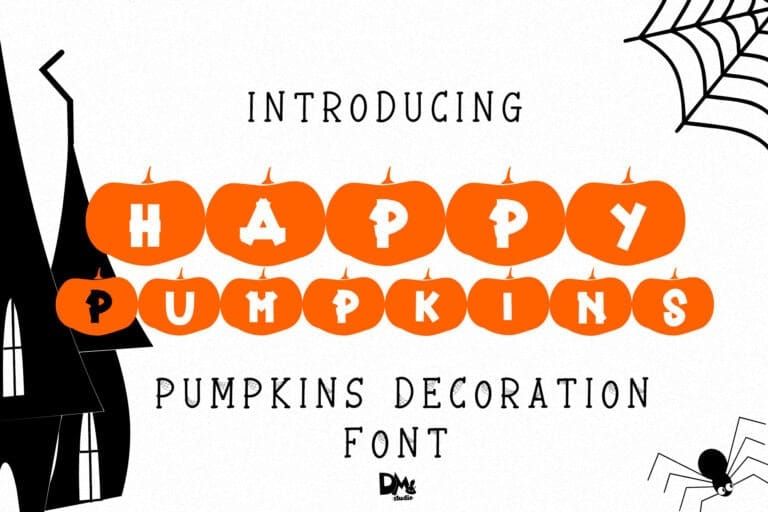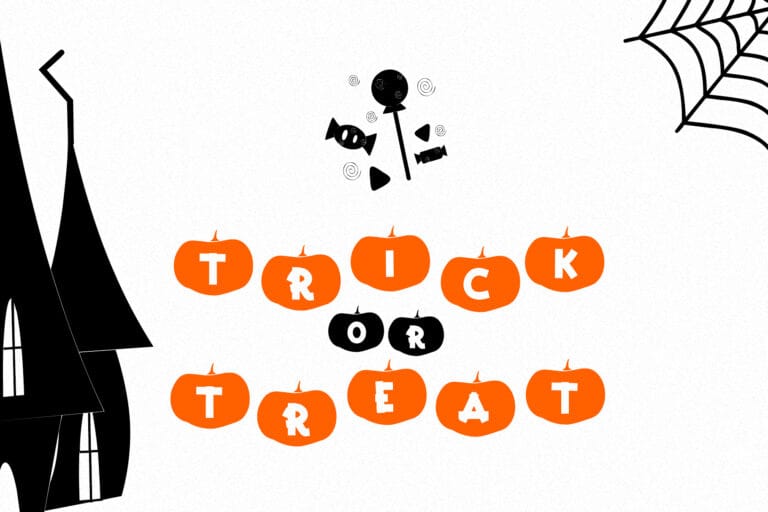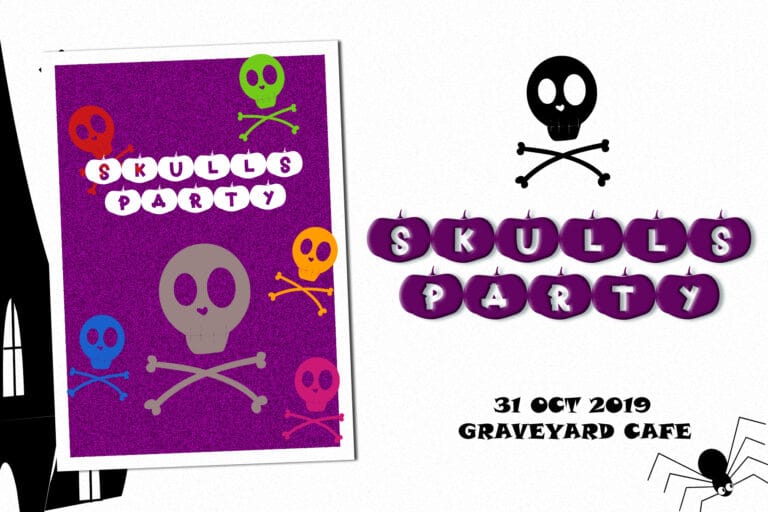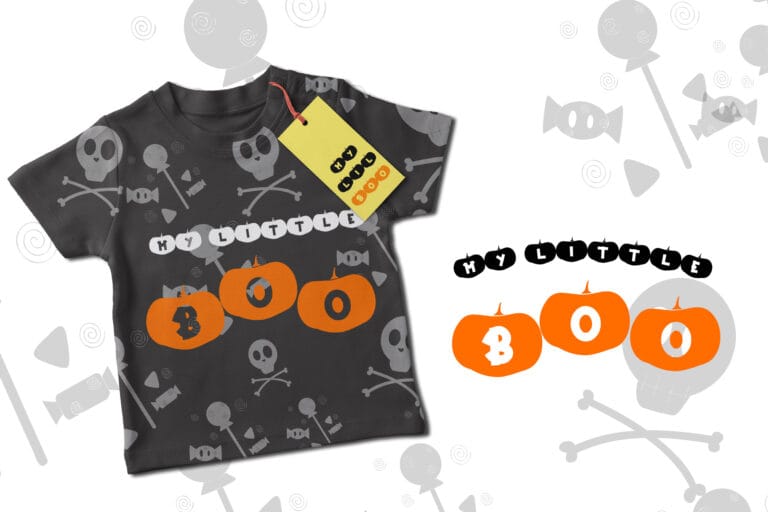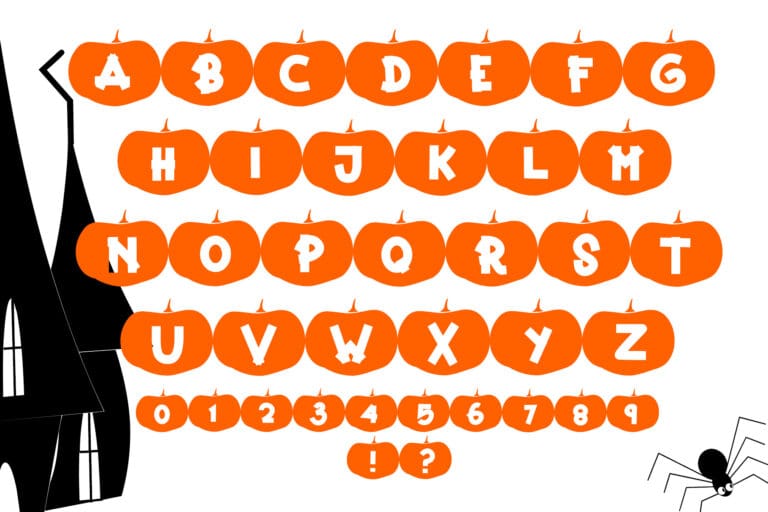
Happy Pumpkins, the pumpkin-shaped font
Celebrate the autumn season with any cute crafting stuffs, use this font to make your designs more fun! Great choice for making cards, pillows, mugs, stickers, halloween invitations, and much more as easy as typing on your keyboard!
Features :
– All in Caps characters
– Numerics & symbols ( question mark and exclaim only)